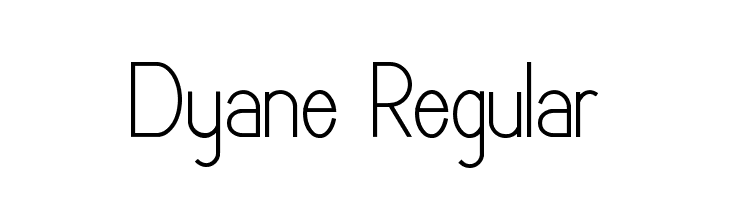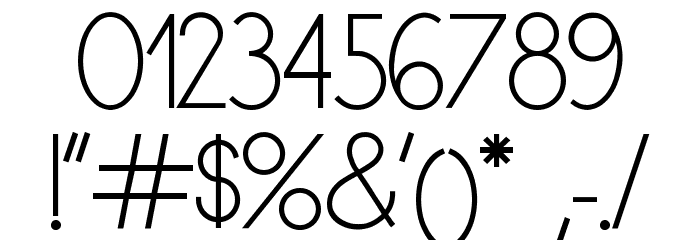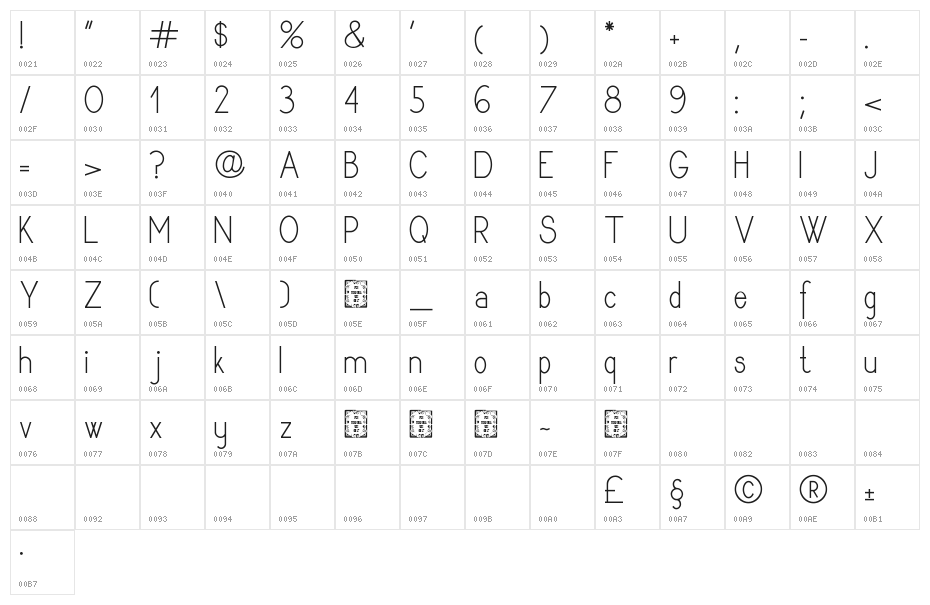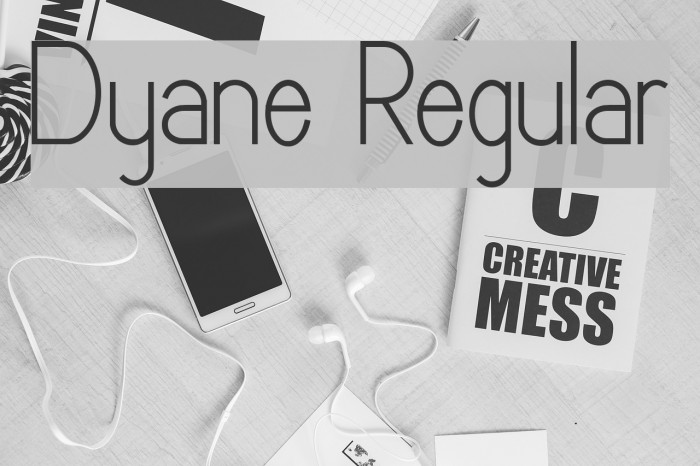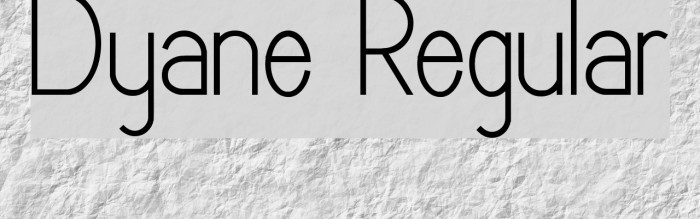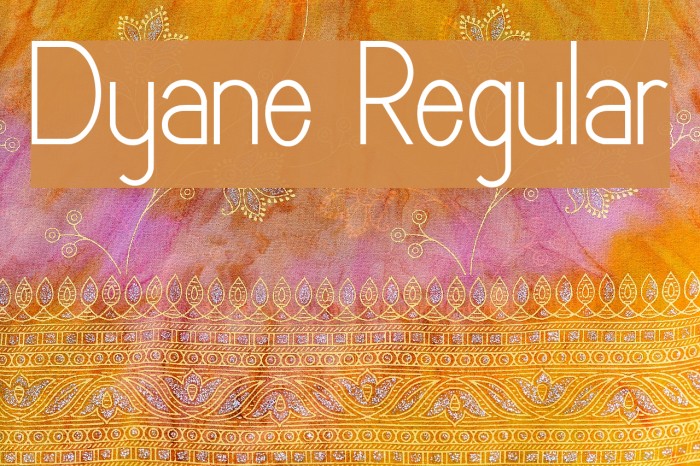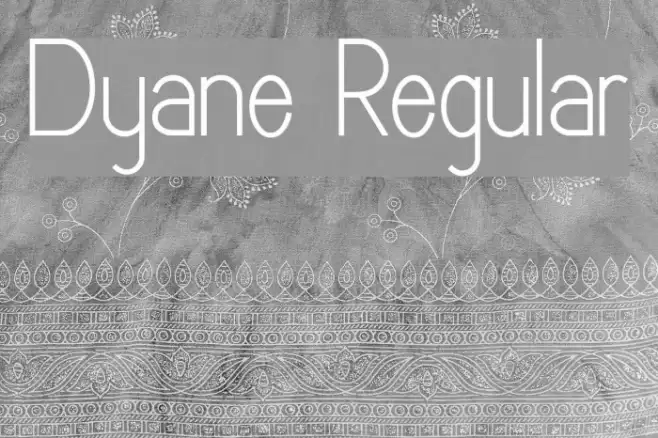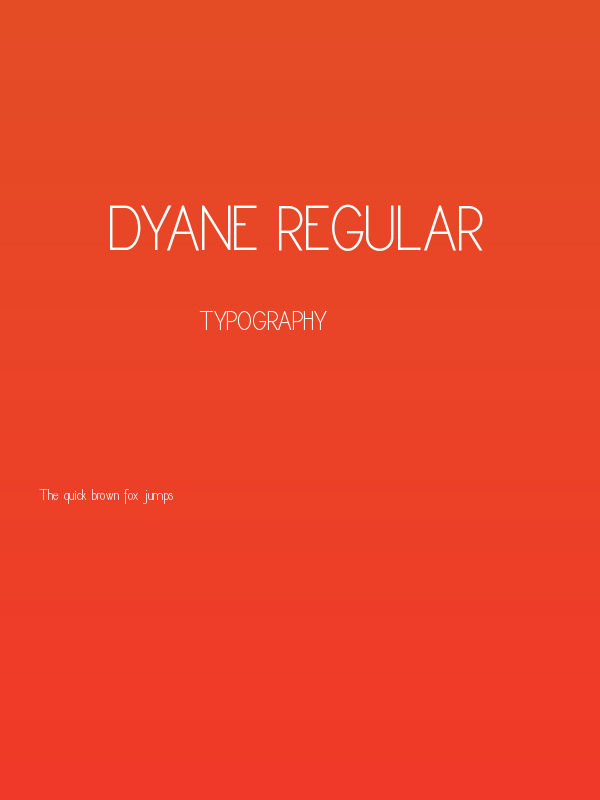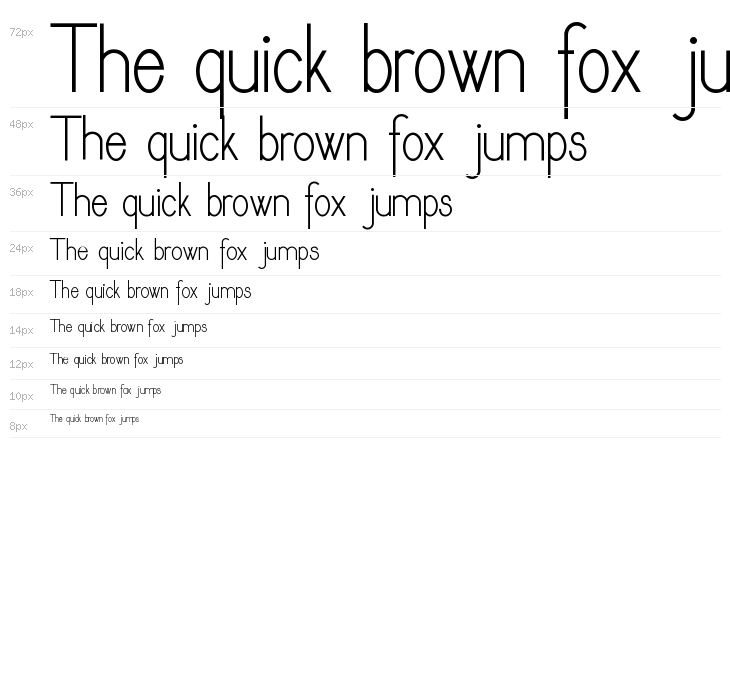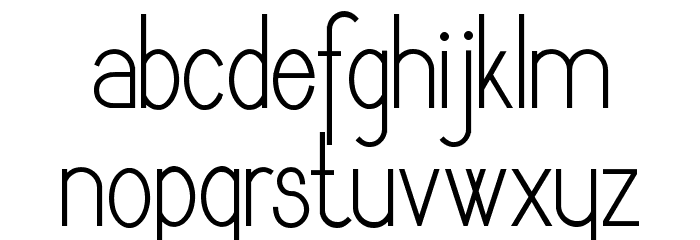
Dyane Regular Font
Dyane Regular Description
This font features a clean and modern sans-serif design with a geometric structure. The characters are uniformly proportioned, offering a sleek and contemporary look. The uppercase letters are tall and narrow, while the lowercase letters maintain a consistent height, providing a harmonious balance. The numerals are clear and easy to read, matching the overall aesthetic of the alphabet. Special characters are designed with the same attention to detail, ensuring they integrate seamlessly with the text. This font is versatile, suitable for both digital and print media, and can be used in a variety of design projects.